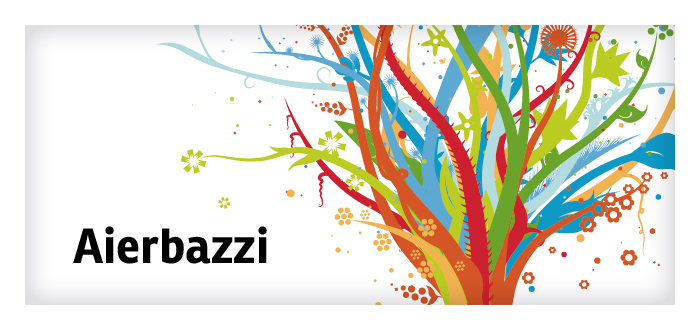
Preview and download Aierbazzi Font. Created by Roberto Cecchi in Dingbats Nature styles with 100% Free license.
Font name: | Aierbazzi |
Categories | Dingbats, Nature |
Author: | Roberto Cecchi |
Note by Roberto Cecchi | |
This font is part of my diploma thesis. I designed Aierbazzi to study possibilities offered by ordinary fonts to create illustrations in a simple way through combination / processing of some preset shapes (keys). |